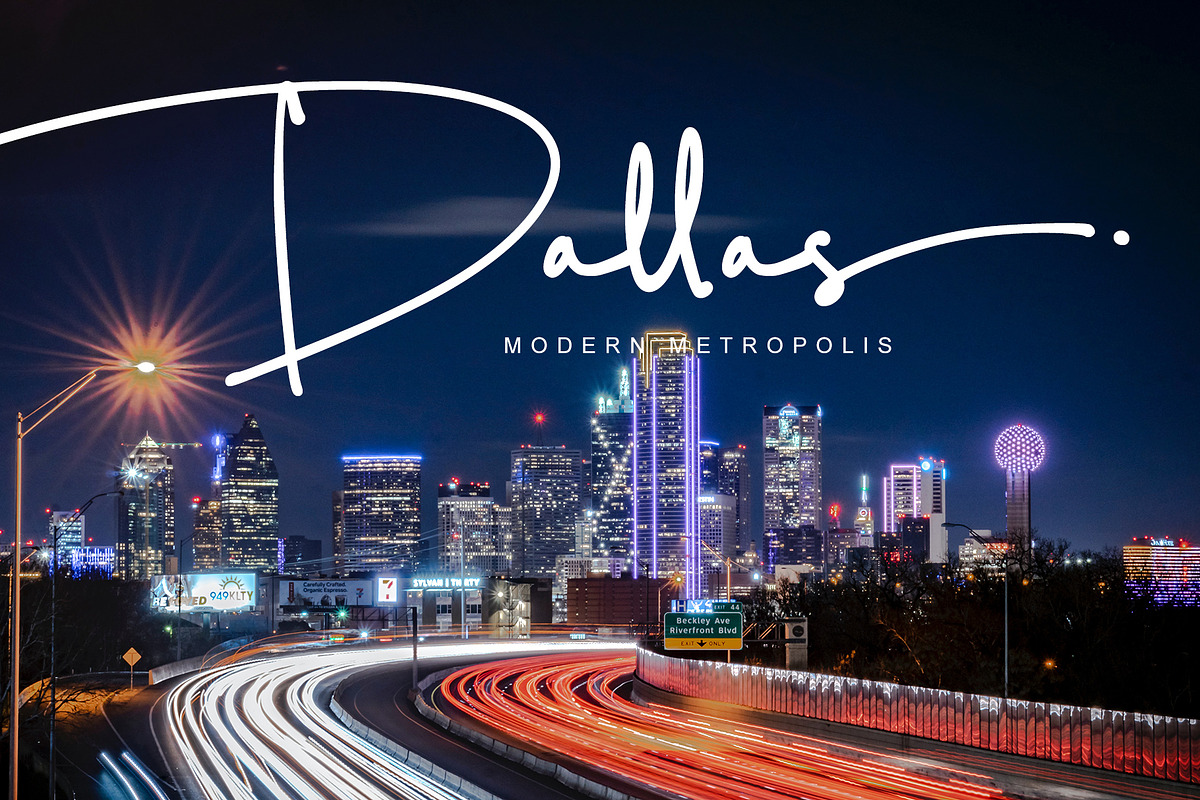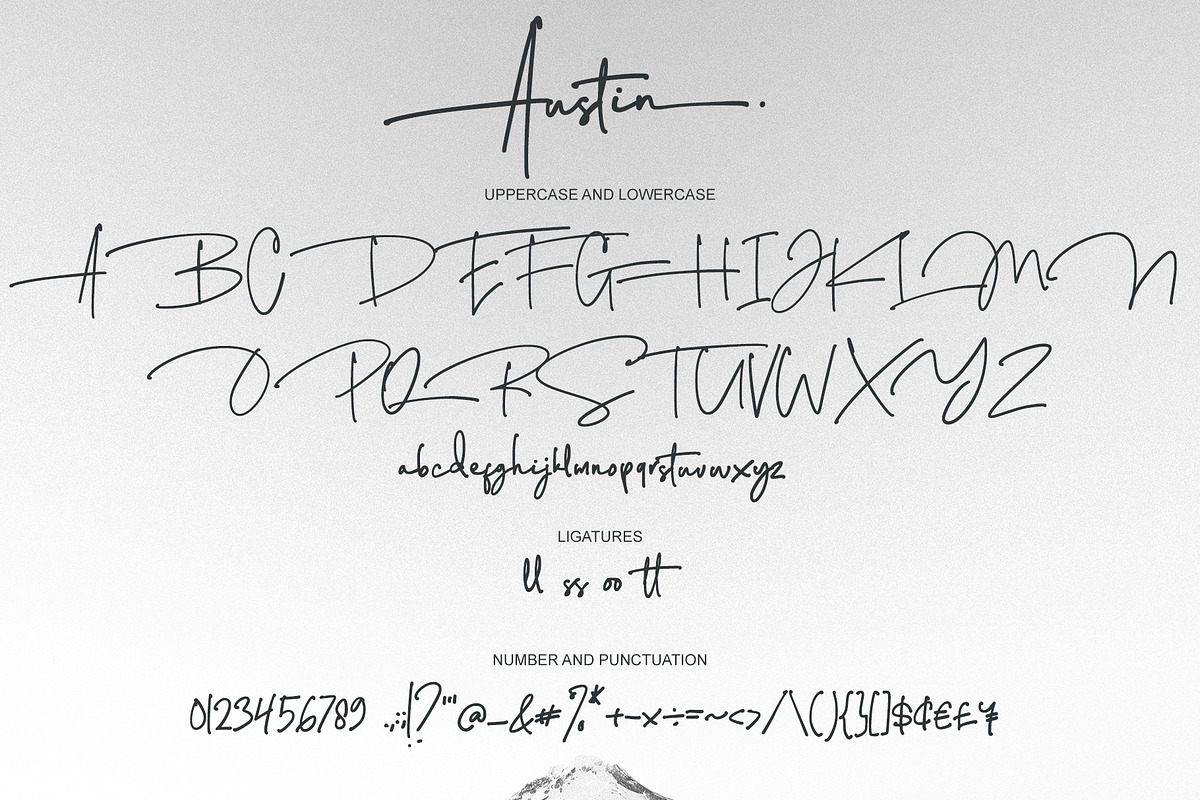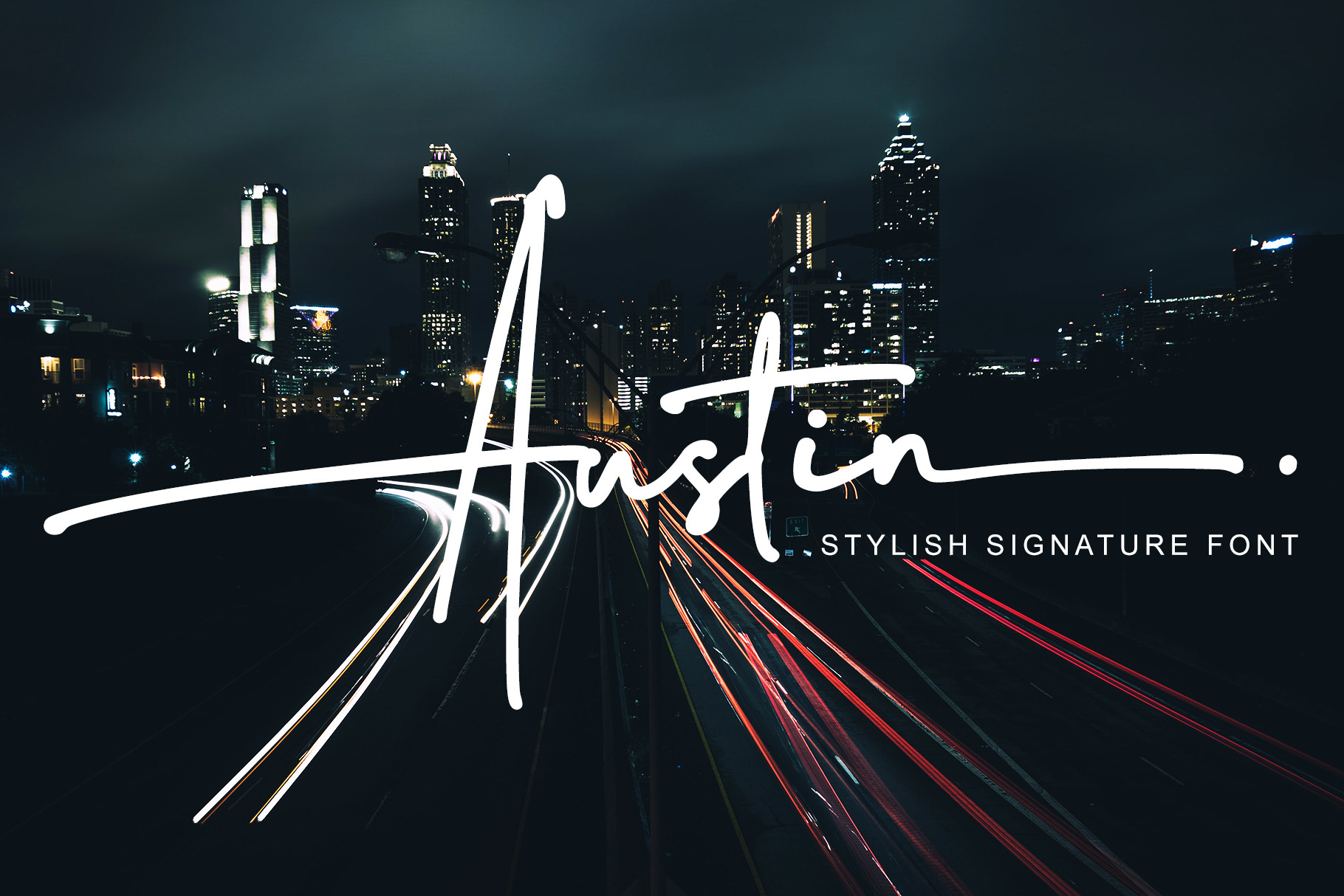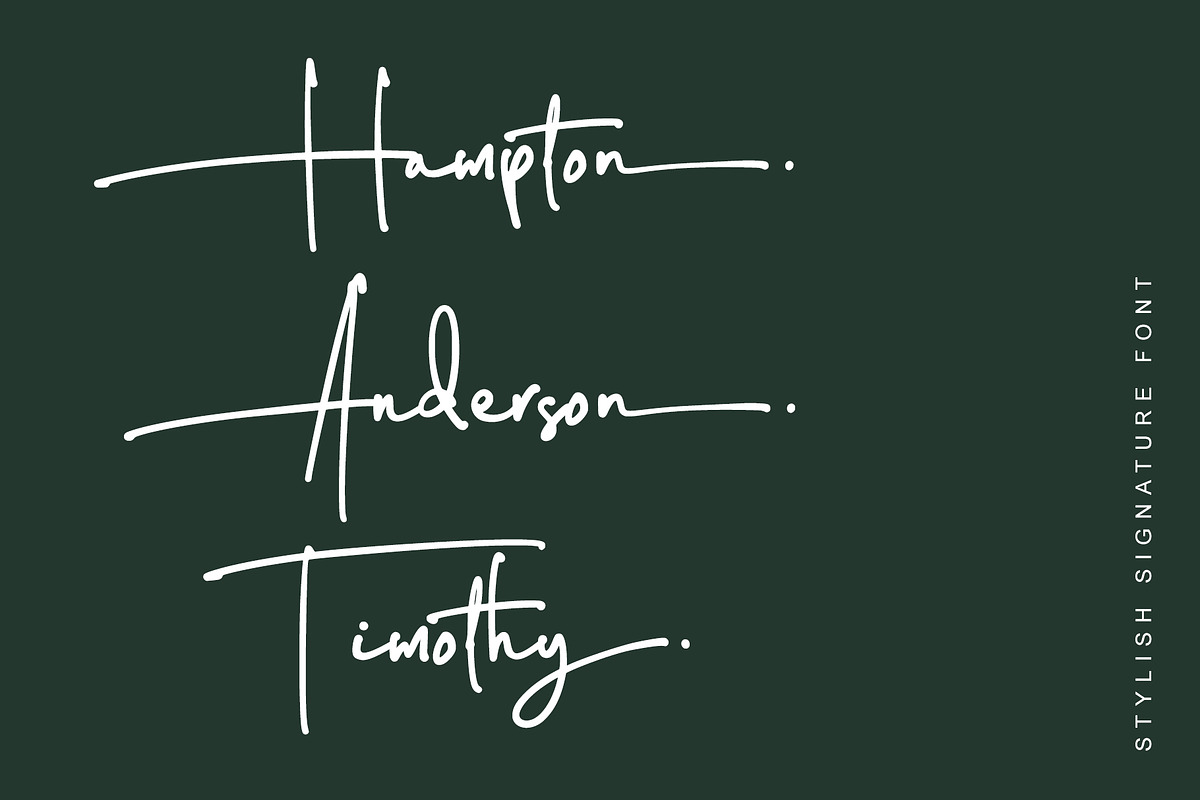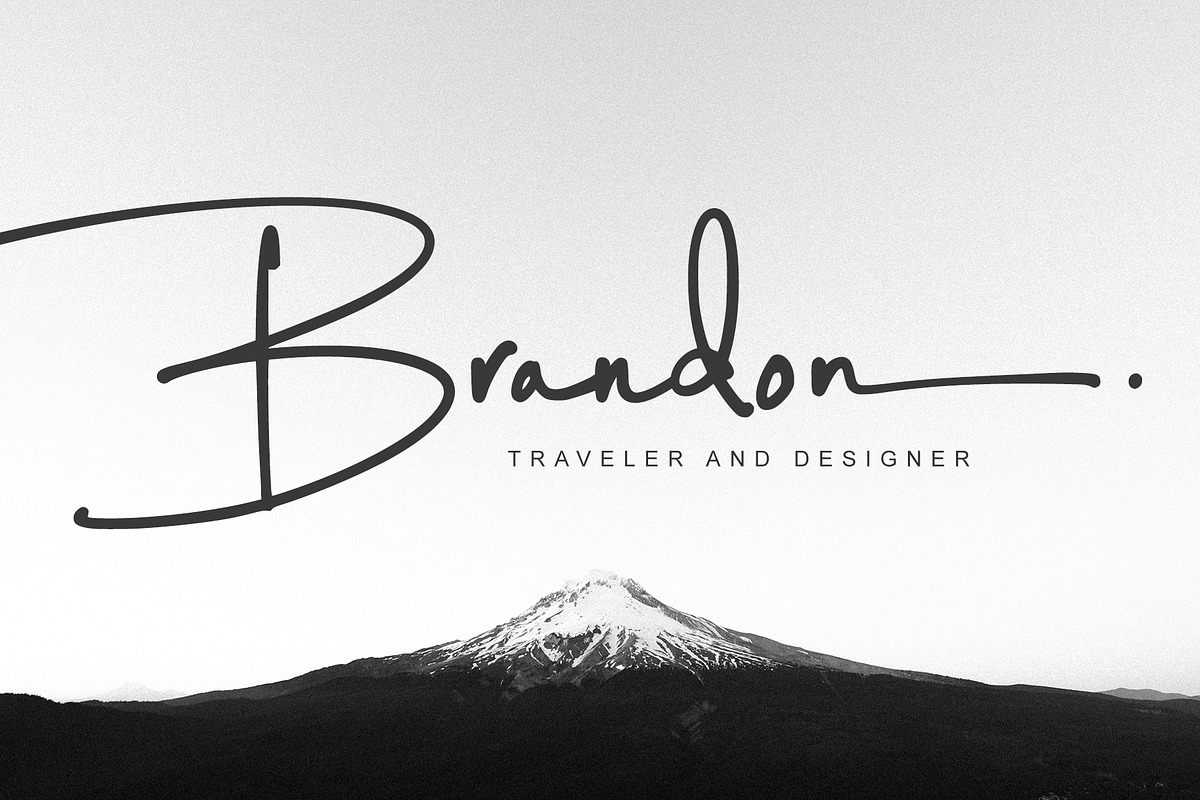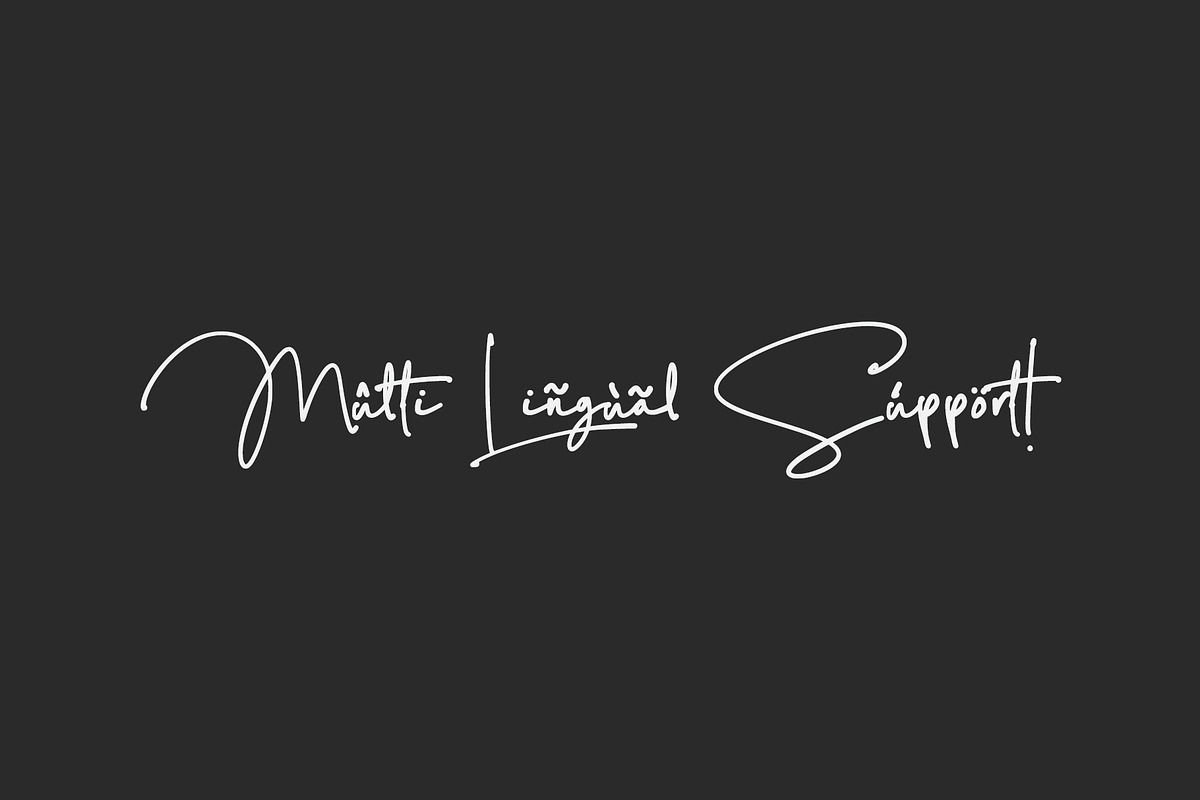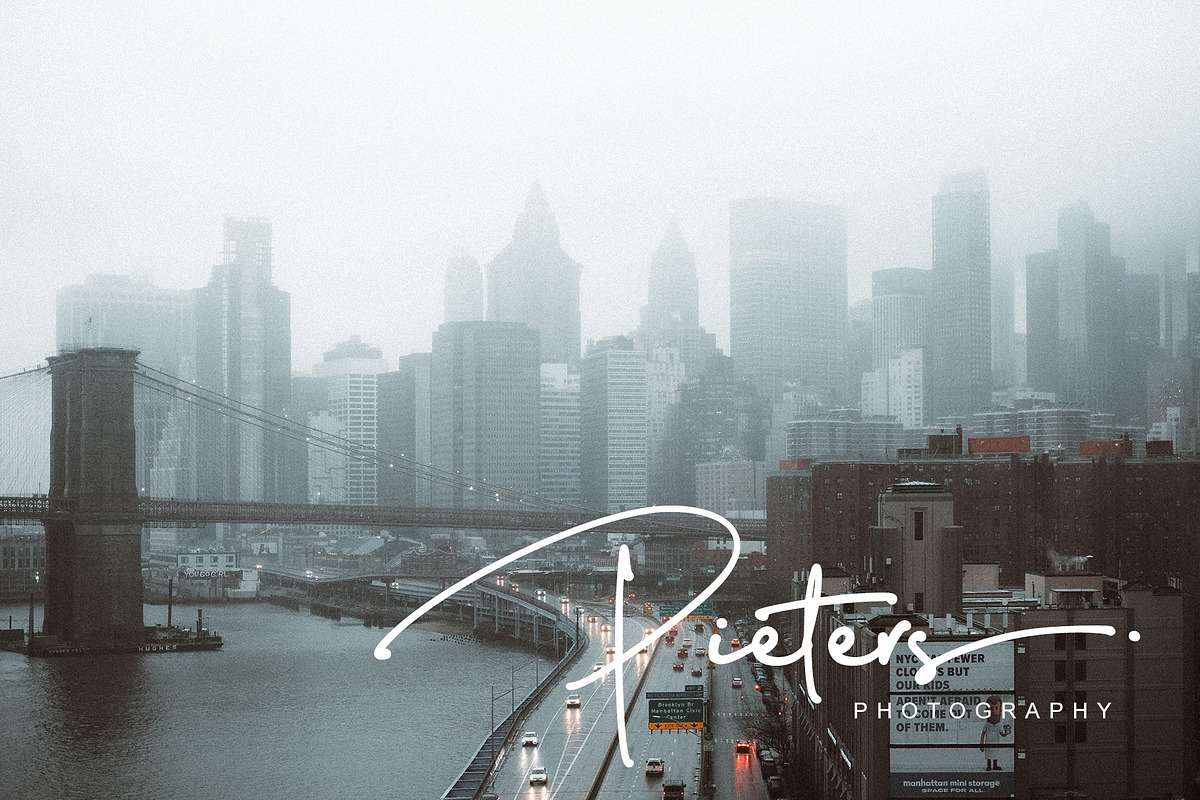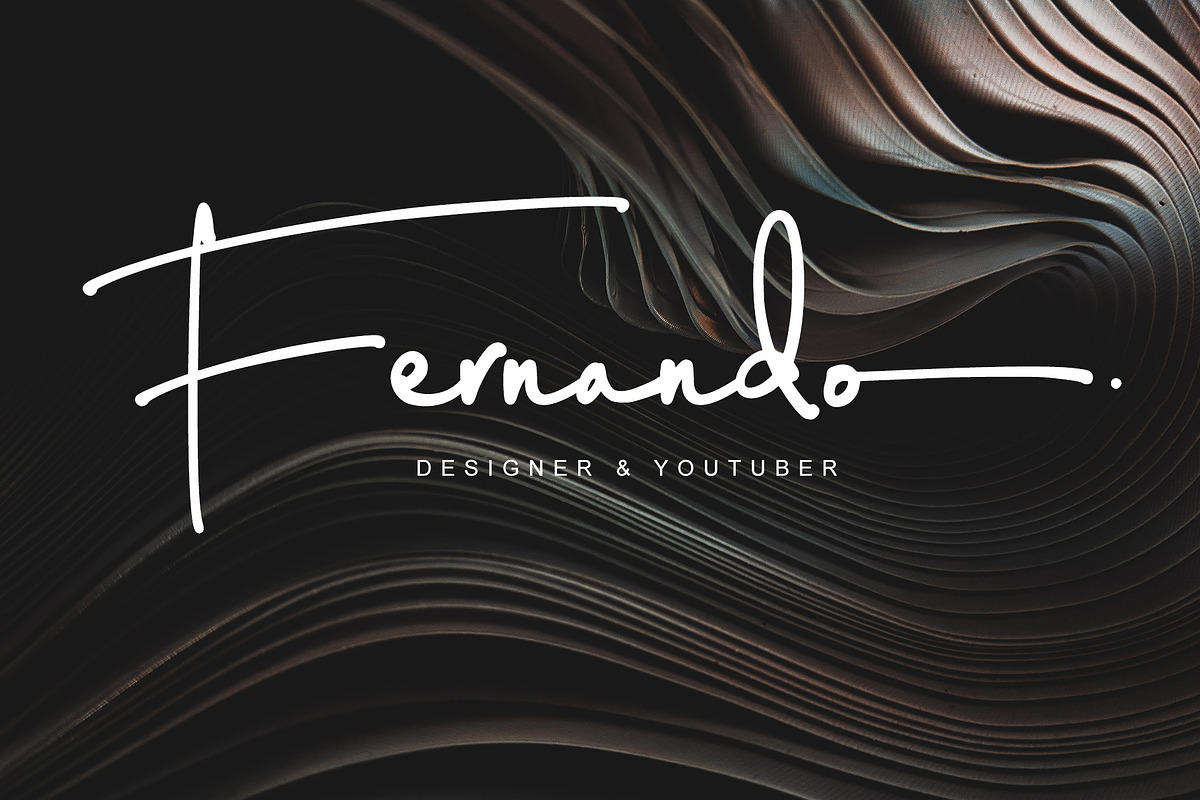
Austin - Stylish Signature Font
This is a natural Stylish signature font with signature font style, also the best natural Stylish signature font that we have ever created. If you want a logo with a natural signature font style, this signature font is the right choice for you. A long stroke at the end of the word that looks like the preview image is really looks like a professional signature, we also add dot in the end of name to make it really natural style.
However this signature font is great for your next creative project such as watermark on photography, album cover, logo, business card, and many other design project.
This signature font comes with uppercase letters, lowercase letters, alternate lowercase letters, multi lingual support, numbers and punctuation